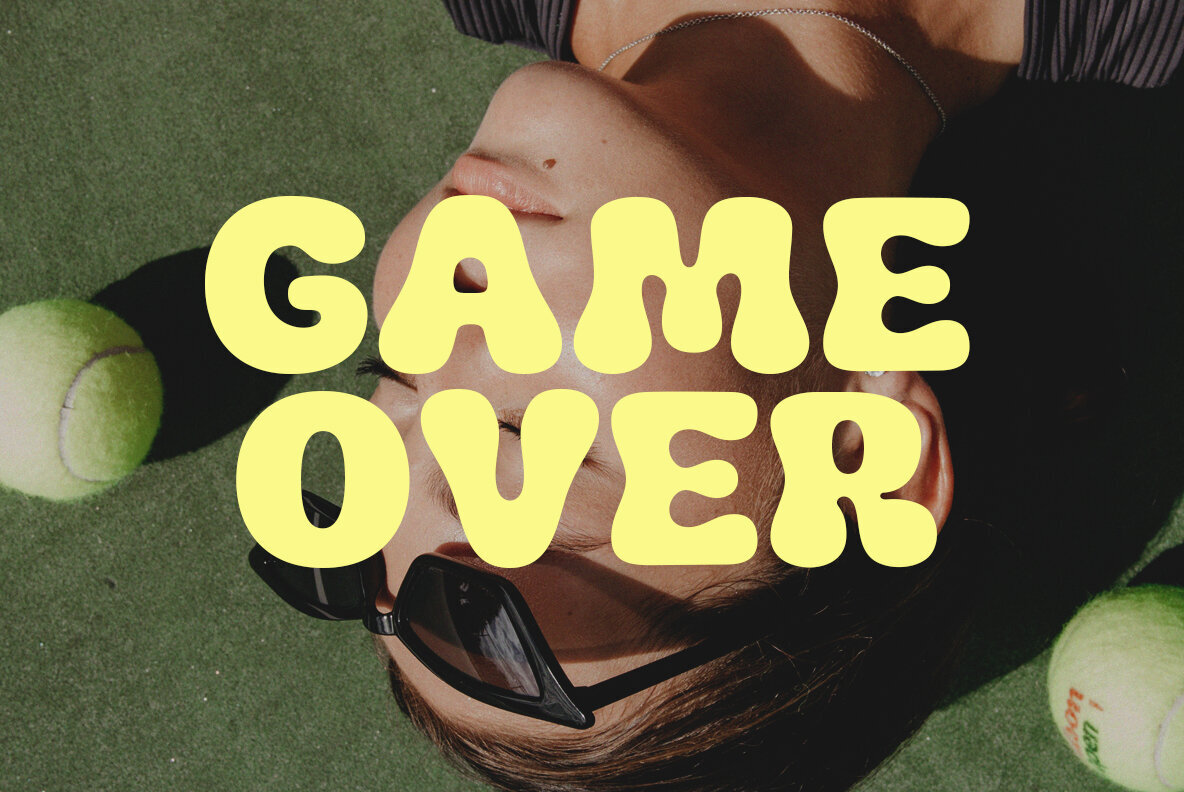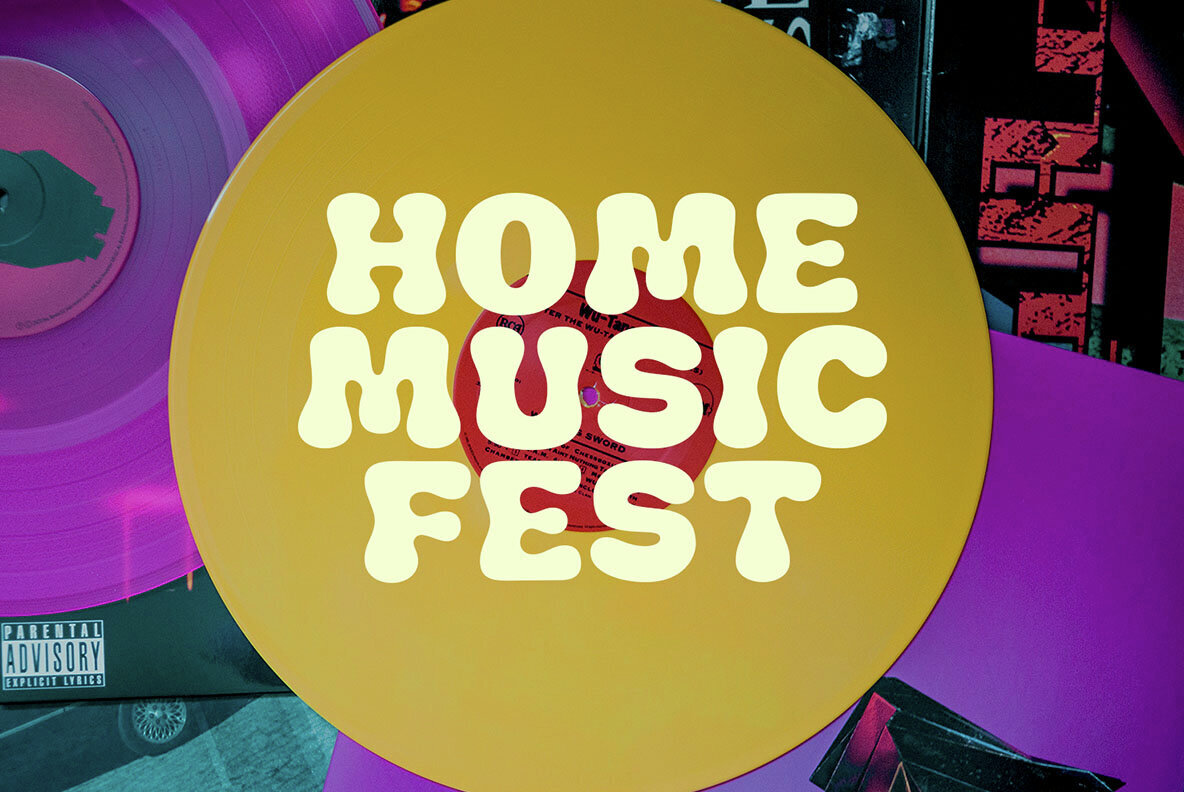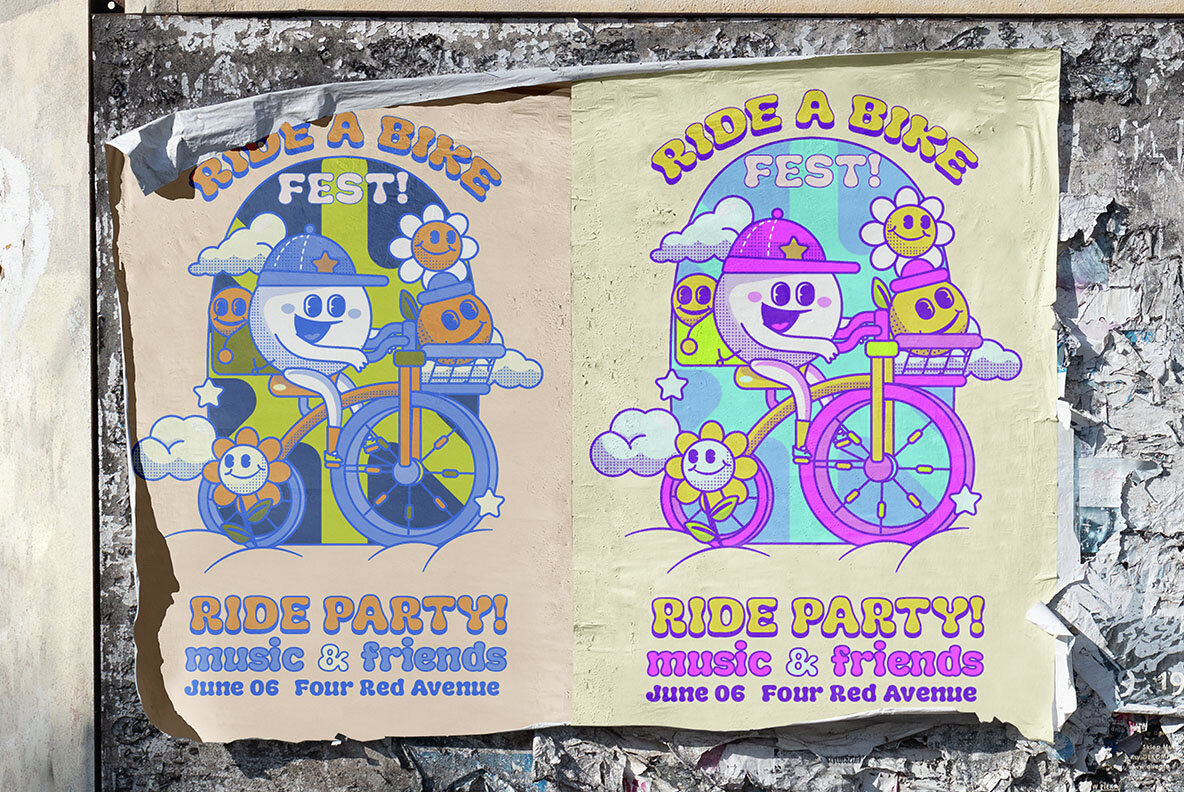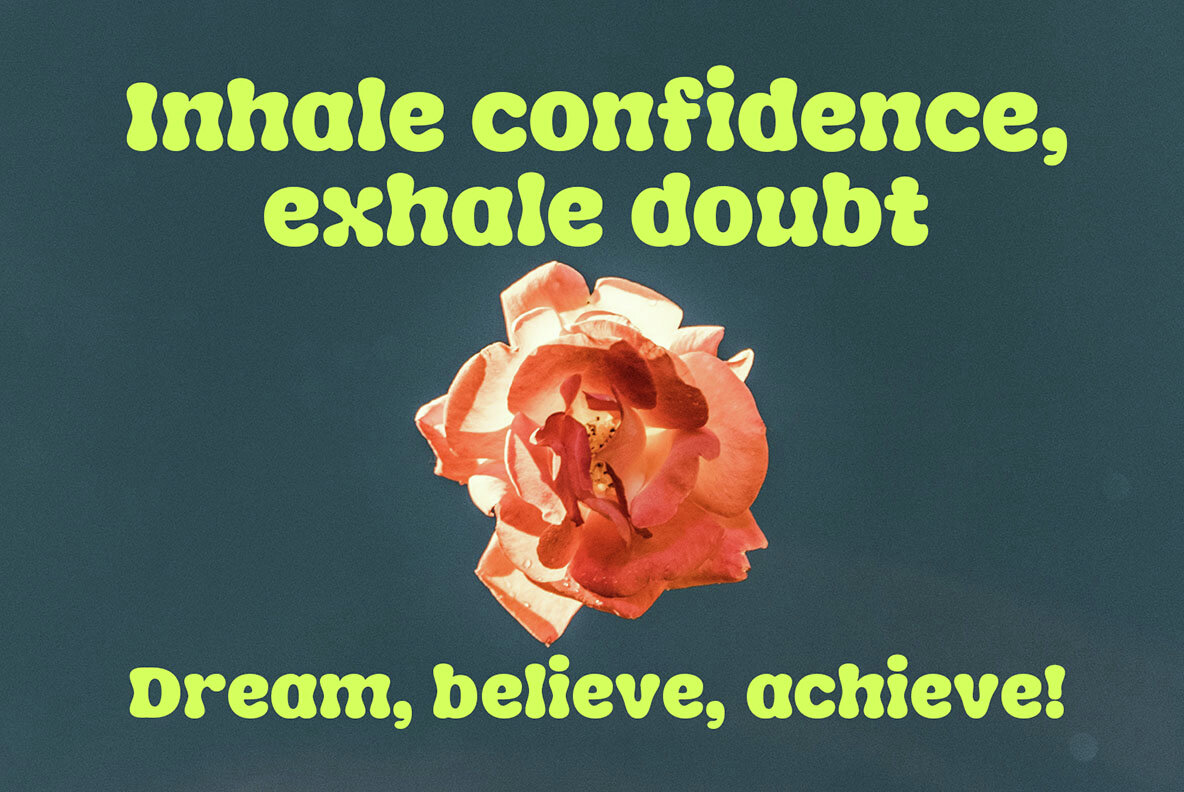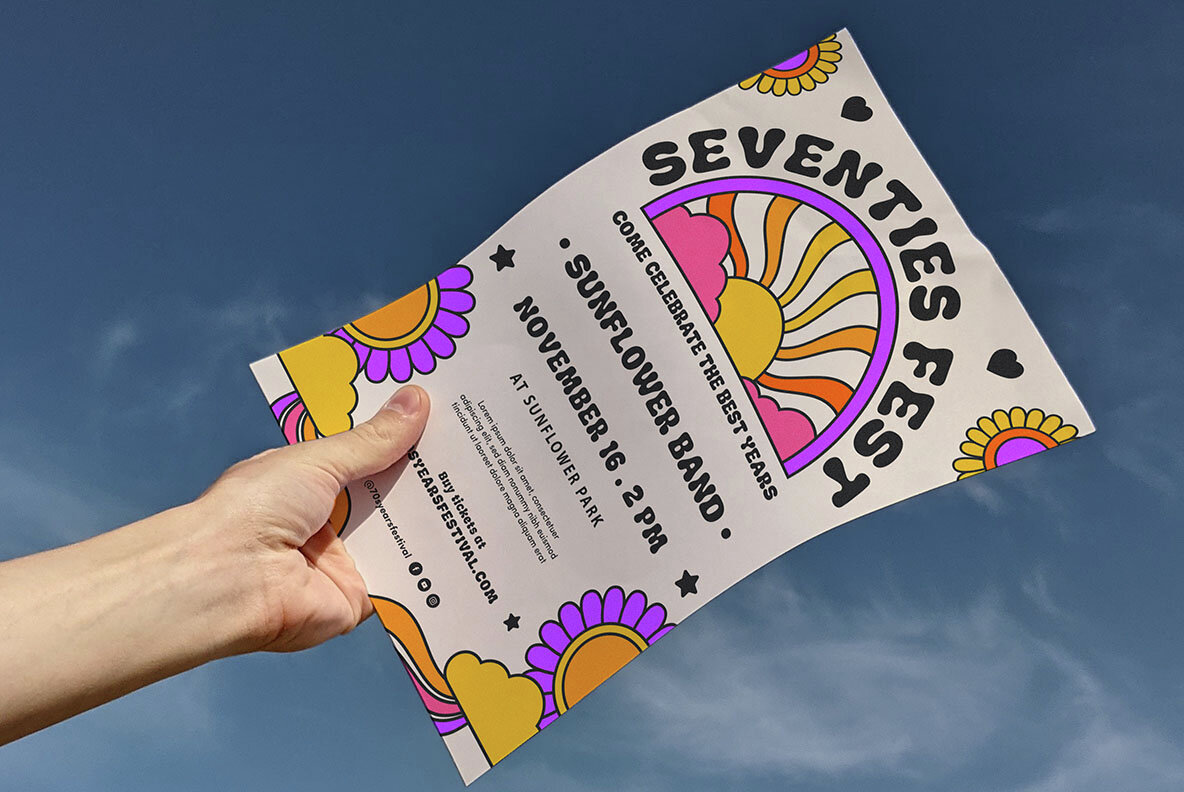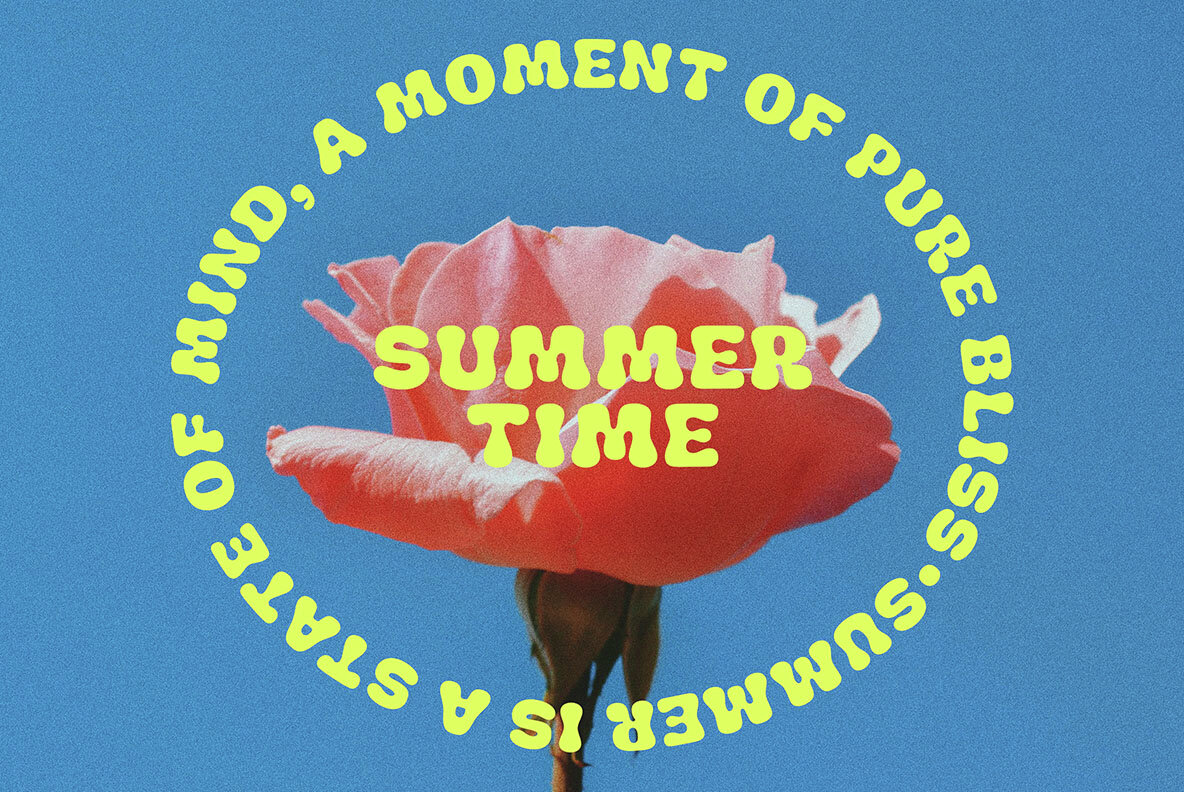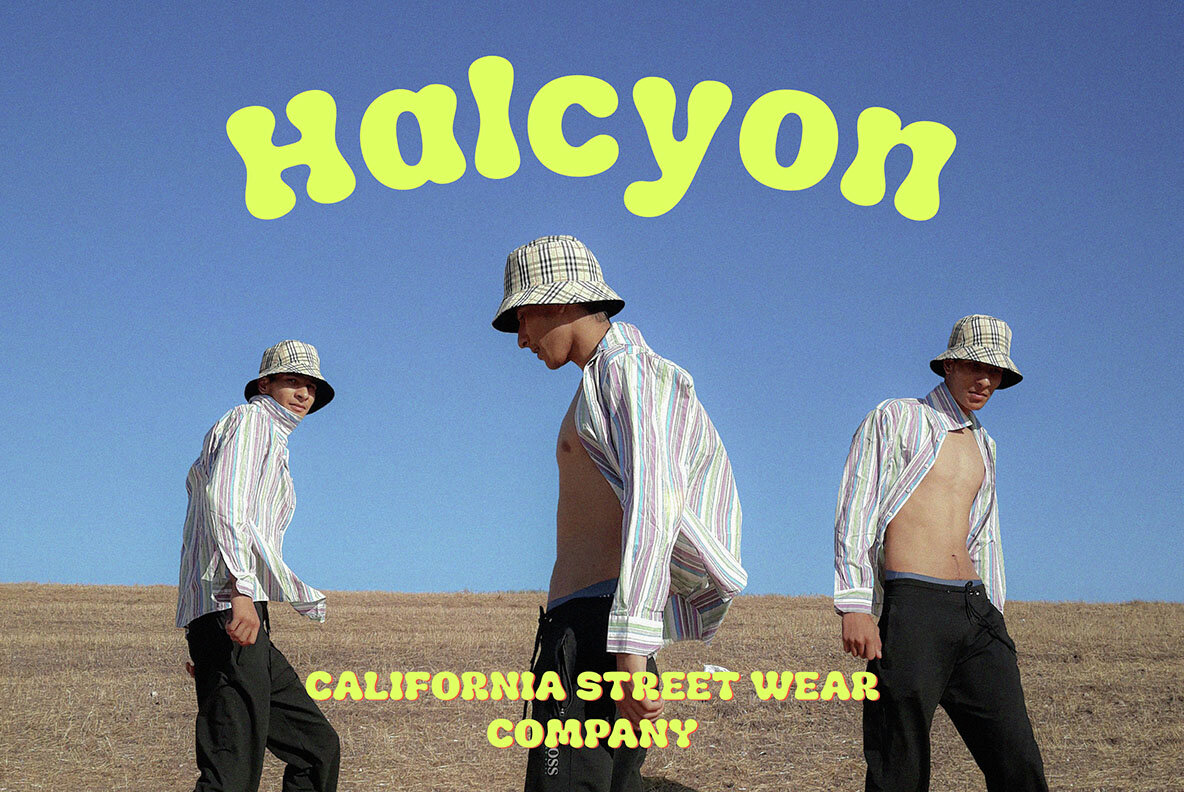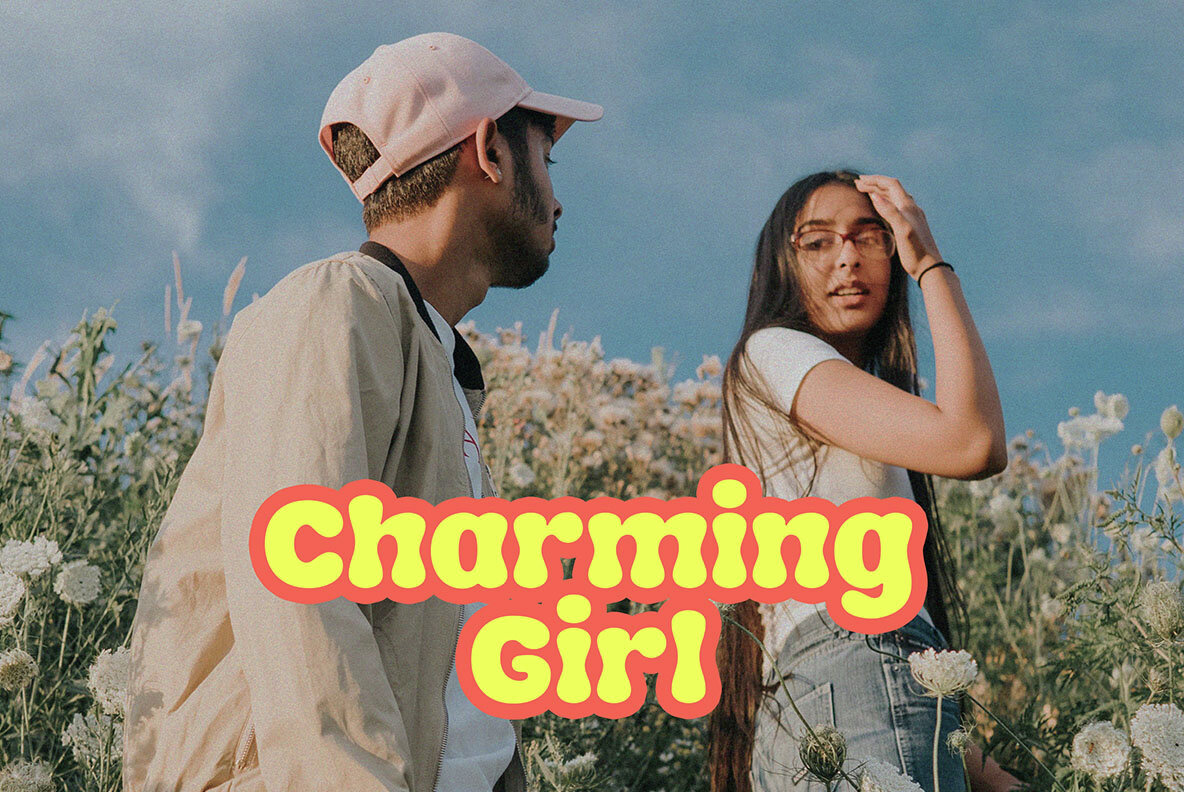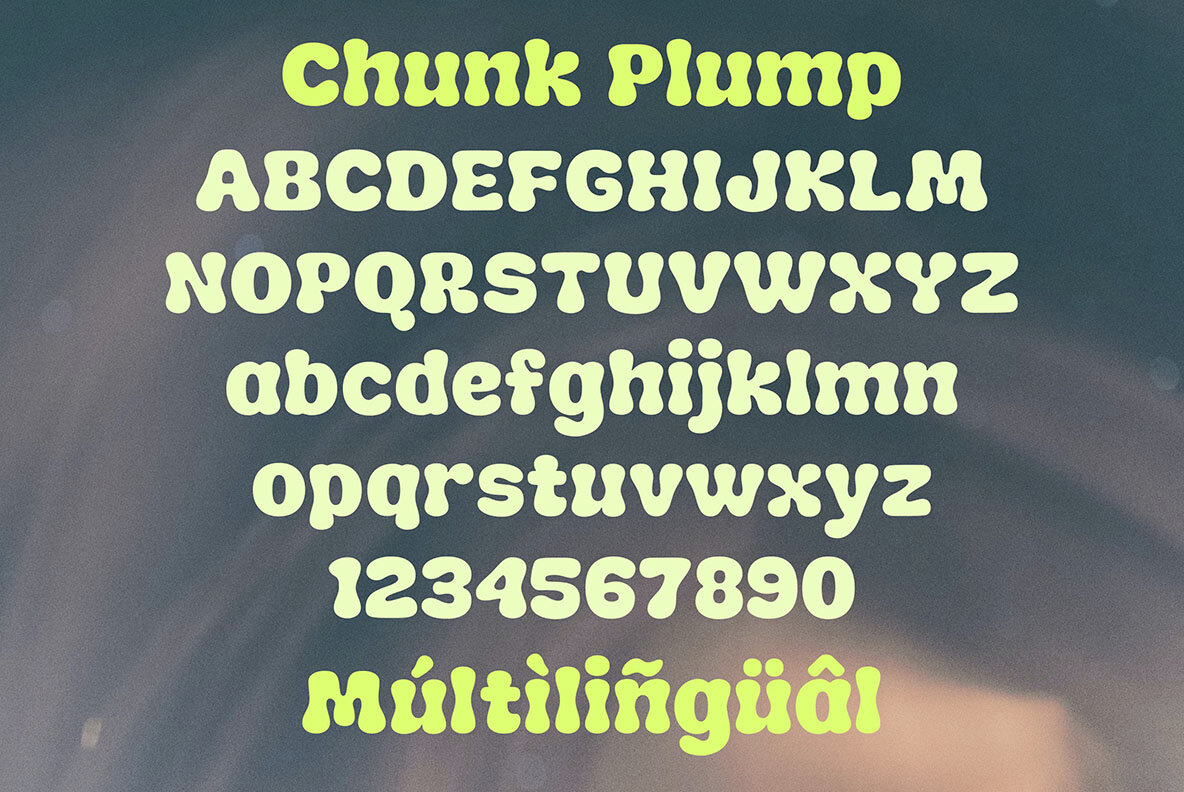
Chunk Plump Font
Chunk Plump Regular
Chunk Plump is a retro display font that elegantly merges chunky and rounded shapes. Its bold and playful design captures the nostalgic charm of the past while adding a contemporary twist. Ideal for headlines and titles, this font brings authenticity and character to any design, infusing a sense of warmth and inviting energy.Chunk Plump: Retro Display Font with a Modern Edge